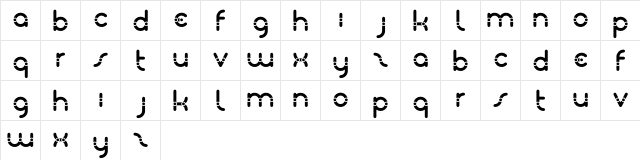
ojol Regular Font Preview
ojol Regular
Design Context for ojol Typeface
ojol is a composed and adaptable typeface that performs quietly and consistently across a wide range of design contexts.